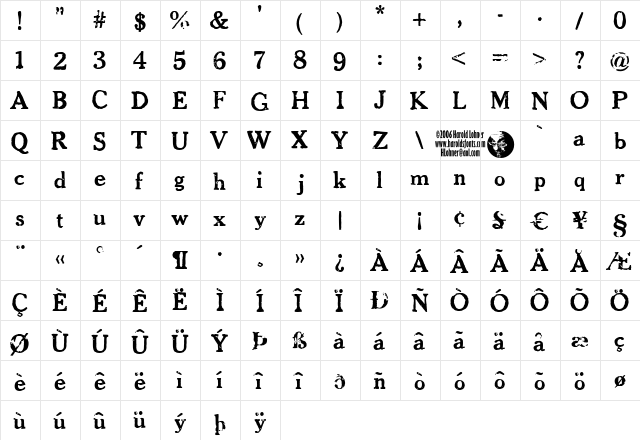
CheltPressDarkVariegated Regular Font Preview
CheltPressDarkVariegated Regular
Design Context for CheltPressDarkVariegated Typeface
CheltPressDarkVariegated is a composed and adaptable typeface that performs quietly and consistently across a wide range of design contexts.